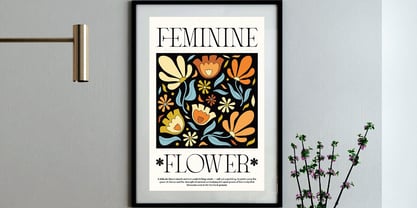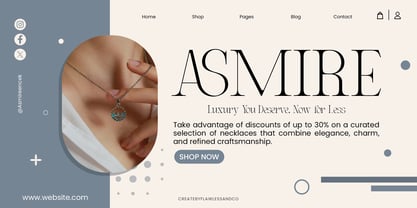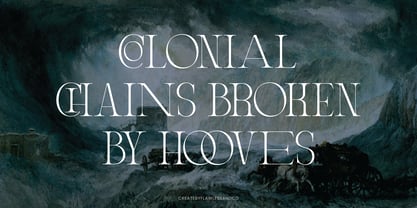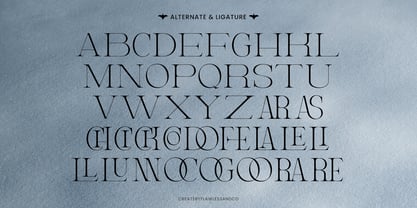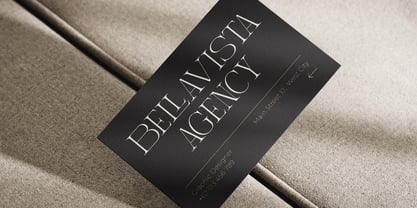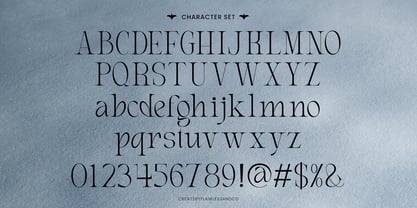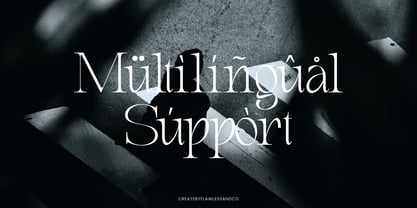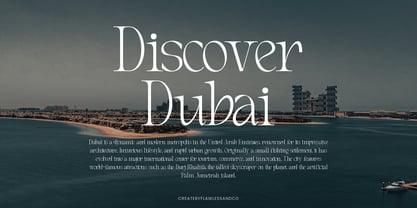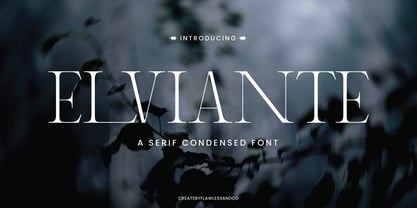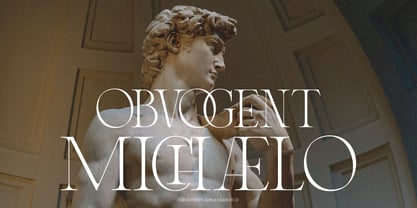
Elviante
The Elviante Font Family was designed by Achmad Yani and published by Flawlessandco. Elviante contains 1 styles. More about this family
ELVIANTE is a refined condensed serif typeface that radiates elegance, precision, and confidence. Featuring high-contrast strokes, tall letterforms, and meticulously balanced spacing, ELVIANTE delivers a sophisticated look that instantly commands attention—without overpowering your design. Blending timeless serif tradition with a sleek modern structure, ELVIANTE is perfect for bold headlines, upscale branding, editorial layouts, luxury packaging, and fashion-forward visuals. Whether you're building a statement logo or crafting an elegant publication, this typeface brings both strength and allure to your project.
Features :
Multilingual, Uppercase alphabet A-Z, Lowercase alphabet a-z, Numbers 0-9, Some punctuation, Alternates & Ligatures